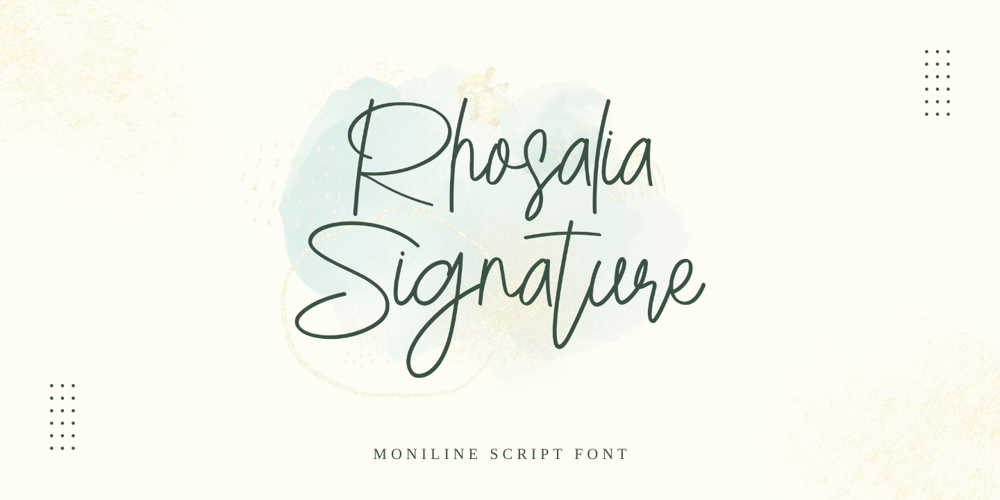
Rhosalia Signature Font Family was designed by Ali Sifak Muftari and published by Liartgraphic. Rhosalia Signature contains 1 styles and family package options. Hi guys!How are you guys? I bet it’s great!Introducing our latest product, we call this product the Rhosalia Signature fontRhosalia Signature hight is a script monoline type fontWith a unique and firm touchRhosalia Signature font is great to use on:fashion magazines, logos, photography, landing pages, flyers, social media and so onWhat’s included- multilingual support- alternatives- ligaturesThank you, best regardsLiarttyype